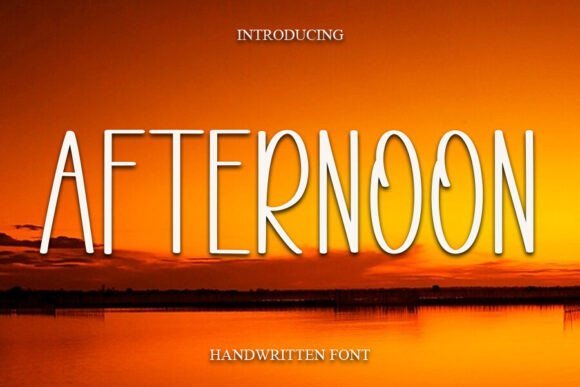
Unlock the Elegance of Afternoon Font
There’s something special about stepping into a quiet café on a lazy afternoon, surrounded by the soft hum of conversation and the gentle clinking of cups. It’s a moment where time stands still, and creativity flows effortlessly. As a designer, you know this feeling all too well – the thrill of bringing a project to life, and the satisfaction of seeing your vision take shape.
That’s where Afternoon Font comes in – a beautiful, handwritten font that captures the essence of timeless classic calligraphy. With its contemporary atmosphere and impeccable form, it adds a touch of elegance and class to any design project. Whether you’re working on a branding campaign, a wedding invitation, or a lifestyle magazine, Afternoon Font is the perfect tool to elevate your work and leave a lasting impression.
As a designer, you’re always on the lookout for that special something that sets your work apart. With Afternoon Font, you’ll find it – a font that’s both sophisticated and approachable, making it the perfect addition to your design toolkit.
Key Features of Afternoon Font
- Font Family: Afternoon is a sans-serif font family.
- Size: Includes 6 font weights: Thin, Light, Regular, Medium, Bold, and Black.
- Unique Characteristics: Designed with a modern and elegant feel, Afternoon features clean lines, open shapes, and a friendly tone.
Afternoon Font Review
After spending some time with the Afternoon Font, I have to say I’m generally pleased with what I see. ✨ The font’s friendly, approachable vibe is perfect for projects that need a touch of warmth and character. The letterforms are well-proportioned and feel balanced, making it easy to read even at smaller sizes.
The font’s texture and subtle imperfections add a lot of visual interest, giving it a unique, hand-crafted feel. ✨ The included font weights and styles offer plenty of flexibility for designers looking to create a cohesive visual identity.
- ⚠️ Limited language support, which may be a concern for designers working with clients from diverse linguistic backgrounds.
- ⚠️ Some users may find the font’s texture and imperfections distracting, particularly in situations where a clean, neutral look is preferred.
Overall, the Afternoon Font is a solid choice for designers looking to add some personality to their projects. While it may not be the best fit for every job, its unique charm and versatility make it a great addition to any designer’s toolkit.
Tips for Getting the Most Out of Afternoon Font
Use Afternoon Font for titles, headings, and body text in designs that require a warm and elegant feel. Pair it with a clean and minimalist design to create a sophisticated look. Experiment with different font sizes and styles to create visual interest and hierarchy in your design.
Afternoon Font is ideal for:
Branding and marketing materials
Book covers and publishing materials
Any design project that requires a warm and elegant feel
Alternatives to Afternoon Font
Ostrich Sans is a modern sans-serif font with a neutral tone, suitable for body text. It has a clean and minimalist design, making it ideal for digital interfaces and editorial content. Compared to Afternoon Font, Ostrich Sans has a more geometric and digital feel, whereas Afternoon Font has a softer, more hand-drawn appearance.
Lato is a clean and elegant sans-serif font, often used for titles and headings. It has a slightly condensed design, making it suitable for smaller text sizes. In contrast to Afternoon Font, Lato has a more modern and sophisticated feel, whereas Afternoon Font has a warmer, more inviting tone.
Playfair Display is a luxurious and elegant serif font, often used for titles and headings. It has a high-end feel, making it suitable for premium brands and high-end content. Compared to Afternoon Font, Playfair Display has a more formal and traditional appearance, whereas Afternoon Font has a more casual and approachable tone.